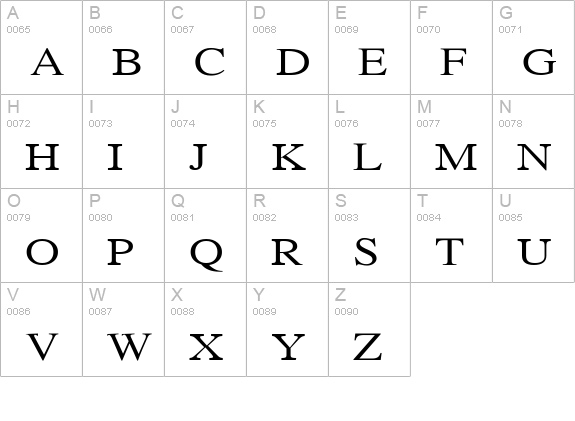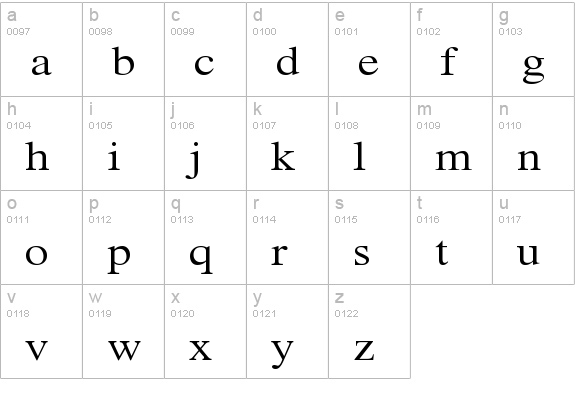
Xerox Serif Wide is a distinctive, extended-width variant in the Xerox typeface family \xE2\x80\x94 well suited to design and typography projects.
Xerox Serif Wide font is a beautifully crafted typeface that exudes elegance and sophistication. With its classic serifs and generous width, this font commands attention while maintaining a sense of modernity. The Xerox Serif Wide font is perfect for creating impactful headlines, elegant logos, and stylish editorial designs. What makes this font even more appealing is that it is completely free to download. You can easily access the Xerox Serif Wide font at FontsMarket.com and enhance your design projects with this versatile typeface. Don't miss out on the opportunity to add this stunning font to your collection today!